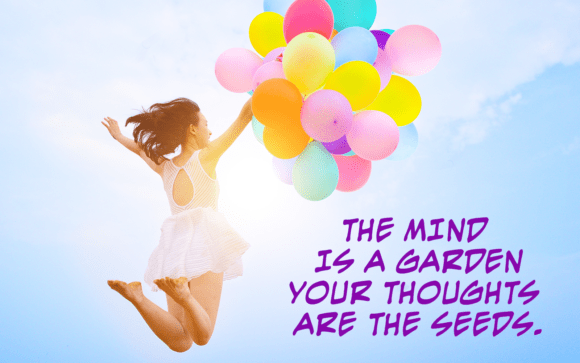
Introduction to Gigglo Font Font
Fonts play a crucial role in design, and the Gigglo Font font is a typeface that brings both character and versatility to any project. Whether you’re working on a branding project, a website, or a print design, the Gigglo Font font offers a unique style that can elevate your work.
Giggle Bold is the bold, flexible font that brings joy to life β perfect for playful ads, kidsβ products, and game brands.
With soft edges and a cheerful attitude, it turns every word into a smile Whether itβs a candy label or a fun app interface, ChubbyBounce makes sure your message jumps off the page with happiness.
Key Features of Gigglo Font Font
Why Choose Gigglo Font Font?
The Gigglo Font font is more than just a typeface β it’s a design tool that helps you communicate your message with style and clarity. Its unique character set and versatile design make it suitable for a wide range of applications, from elegant invitations to bold headlines.
With its carefully crafted letterforms and balanced proportions, the Gigglo Font font ensures readability and visual appeal across all mediums.
What makes Gigglo Font font special?
The Gigglo Font font stands out with its unique design, exceptional readability, and versatility across various design applications.